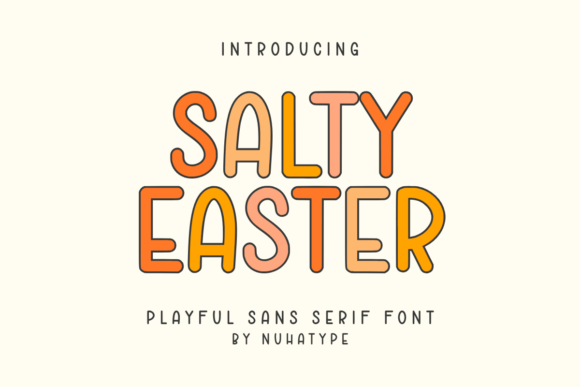
Salty Easter: A Minimalist Font for Editorial Elegance
There’s a quiet confidence in choosing the right font for a project. It’s not just about aesthetics—it’s about clarity, tone, and how well it supports the content it carries. When I recently redesigned a lifestyle blog header, I was drawn to the idea of simplicity. That’s when I discovered Salty Easter, a thin sans serif font that feels both modern and approachable. It’s not flashy, but it has a charm that makes it ideal for editorial design.
The Visual Character of Salty Easter
Salty Easter is an elegantly minimalist typeface that captures the essence of natural handwriting without being too ornate. Its clean lines and subtle curves give it a handcrafted feel, yet it maintains a strong visual identity. The font’s light weight and open structure make it highly readable, even at smaller sizes. It’s not the kind of font you’d use for dense body copy, but it shines in titles, headers, and decorative accents.
What I appreciate most about Salty Easter is its rhythm. It flows smoothly on the page, making it a great choice for creating a sense of calm in editorial layouts. Whether it’s used as a chapter opener in a printable planner or as a pull quote in a digital magazine, the font’s personality is understated yet inviting.
Editorial Use Cases for Salty Easter
In my recent work on a recipe ebook, I tested Salty Easter as the title font. It worked beautifully against a soft background, drawing the eye without overwhelming the reader. For the cover text, I paired it with a bold serif font to create contrast and hierarchy. This combination helped reinforce the book’s theme—both practical and elegant.
Another project involved a wedding guide. I used Salty Easter for section headings and pull quotes, allowing the font’s delicate curves to complement the romantic tone of the content. It added a touch of sophistication without being too formal. The font also worked well in social media graphics, where its minimalist style lent itself to clean, modern designs.
For a lifestyle blog redesign, I considered using Salty Easter for the site’s header. It would have provided a fresh, contemporary look while maintaining readability across different screen sizes. However, I opted for a slightly heavier sans serif font for the main navigation, leaving Salty Easter for secondary elements like tags and featured posts.
Readability and Practical Considerations
When evaluating a font for editorial use, readability is paramount. Salty Easter performs well in this regard, especially when used in larger sizes. Its thin strokes can be a bit delicate on screens, so it’s best suited for headlines rather than body text. In print, however, it holds up nicely, particularly in magazines and brochures where the font’s character can enhance the overall aesthetic.
For mobile layouts, I recommend using Salty Easter sparingly. While it looks good on larger screens, its light weight may not translate well to smaller devices. Pairing it with a more robust sans serif font for body copy ensures that the content remains legible across all platforms.
When exporting to PDFs or print materials, it’s important to check that the font supports the necessary styles and weights. Salty Easter typically comes with several variations, including bold and italic, which can help with visual hierarchy in long-form content. However, it’s always a good idea to verify that the font files are included in your design assets before finalizing any layout.
Font Pairing and Brand Identity
One of the strengths of Salty Easter is its versatility in font pairing. As a display font, it works well with a variety of other typefaces. For example, pairing it with a classic serif font like Georgia or Times New Roman can create a balanced contrast that enhances readability. On the other hand, combining it with a clean sans serif like Helvetica or Montserrat can add a modern edge to your design.
When building brand identity, Salty Easter can serve as a signature element. Its minimalist style aligns well with brands that value simplicity and elegance. Whether it’s used in logo design, packaging, or web design, the font adds a cohesive feel to the overall visual language.
When to Avoid Salty Easter
While Salty Easter is a fantastic choice for many editorial uses, it’s not ideal for every scenario. Its expressive nature means it may not be the best fit for dense paragraphs or formal reports. In such cases, a more traditional serif or sans serif font would better support the content’s tone and readability.
Additionally, Salty Easter isn’t recommended for small captions or footnotes, where clarity is essential. Its thin strokes can make it difficult to read at very small sizes, especially on digital platforms. Always test the font in different contexts to ensure it meets your project’s needs.
Ultimately, Salty Easter is a font that invites thoughtful design. It’s not about overpowering the content but enhancing it with a subtle, elegant presence. Whether you’re creating a printable planner, a course PDF, or a digital magazine layout, this font has the potential to elevate your editorial work with its minimalist charm and editorial appeal.